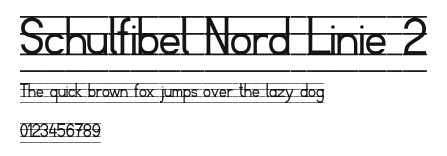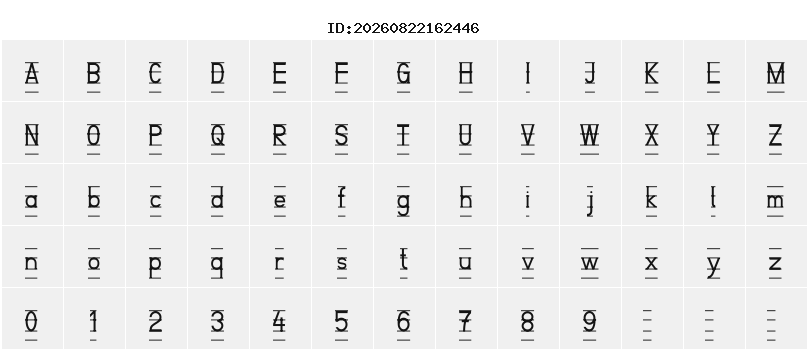
• Font Name: Schulfibel Nord Linie 2
• Font ID: PeterWiegel/Florian Emrich: Schulfibel Nord Linie 2: 2011
• Full Font Name: Schulfibel Nord Linie 2
• Designer: Peter Wiegel und Florian Emrich
• Manufacturer: Peter Wiegel und Florian Emrich
About Schulfibel Nord Linie 2.ttf
Schulfibel Nord Linie 2.ttf is a modern, elegant sans-serif font designed for ultimate readability and visual harmony. Perfect for branding, headlines, web design, and print materials.